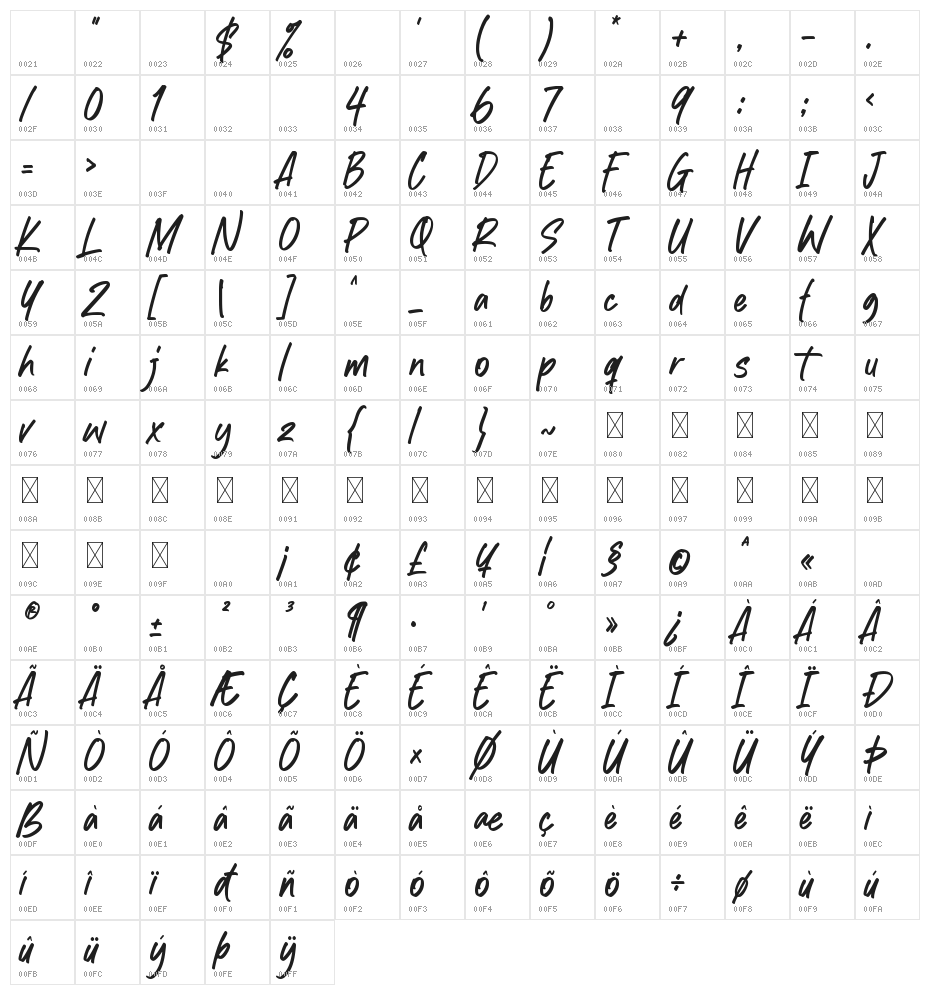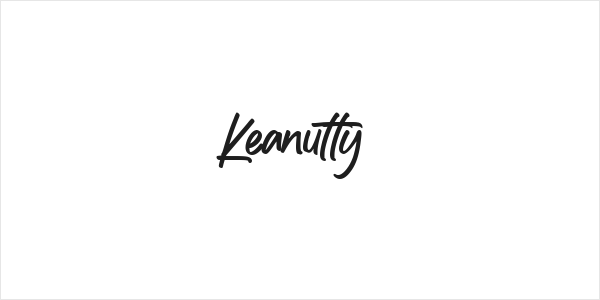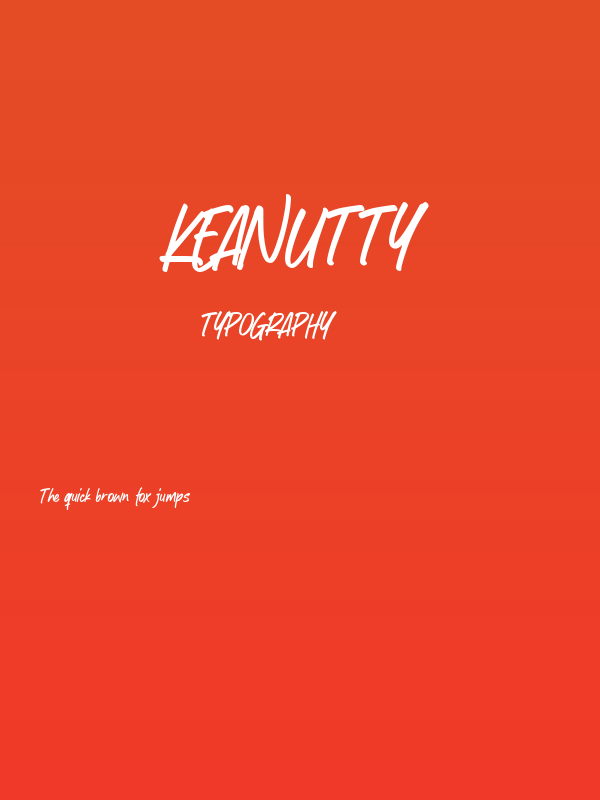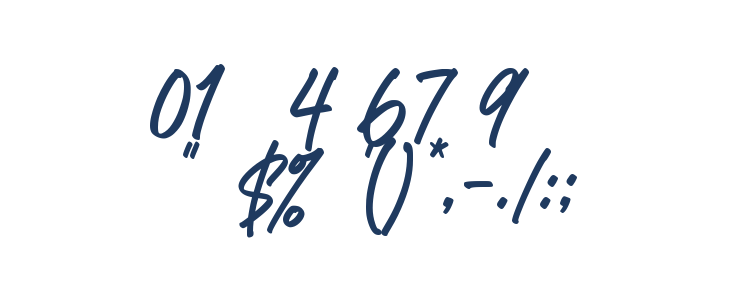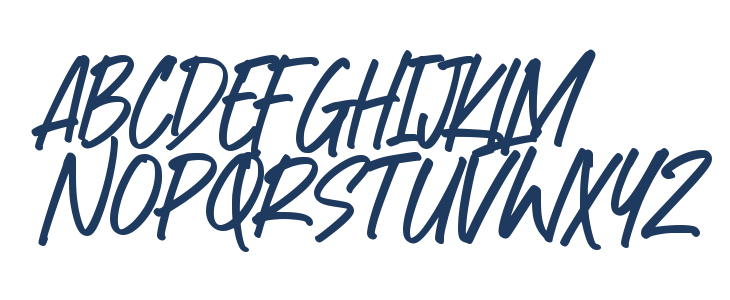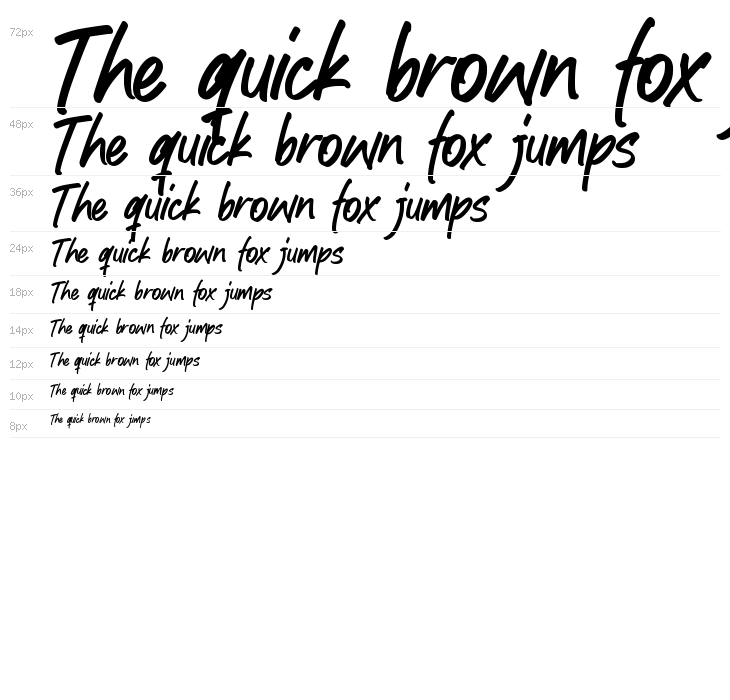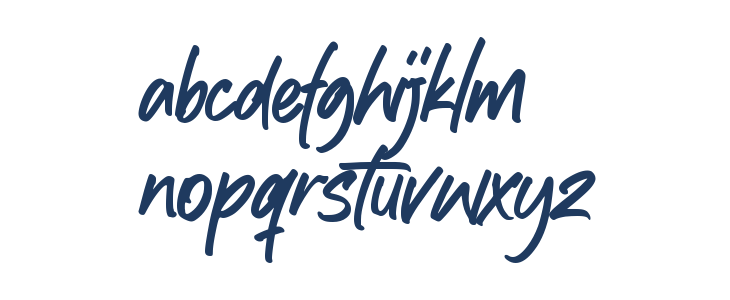
Keanutty Font
Keanutty Description
A casual, handwritten script font with a slightly slanted, playful style. The characters are smooth, flowing, and have a natural, informal appearance.
| Overall Style | Casual, Playful, Informal |
| Use Case | Personal projects, Invitations, Greeting cards, Creative branding |